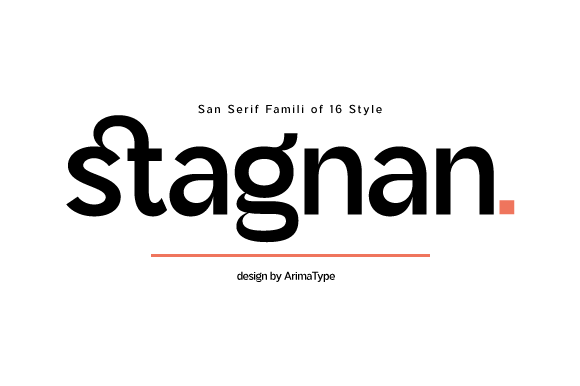
Behold Stagnan, the remarkable sans serif font family, meticulously designed by Arimatype. Its clean lines and contemporary appeal make this font a versatile choice for any designer seeking to elevate their projects with sophistication and style.
With Stagnan, see your words take on a new lease of life, exuding confidence and clarity. Its carefully crafted glyphs and subtle curves lend an air of elegance to every typographic creation, ensuring that your message commands attention. Whether you're composing a captivating website, crafting a stylish logo, or designing eye-catching marketing materials, Stagnan will elevate your designs to new heights.
Step into a realm of creative possibilities with Stagnan. Its versatility extends from captivating headlines that demand attention to elegant body text that invites readers to delve deeper into your content. Experience the joy of effortlessly crafting designs that resonate with your audience, leaving a lasting impression that lingers in their minds long after they've encountered your creations.
Let Stagnan be the cornerstone of your typographic journey. Its meticulously balanced letterforms ensure optimal legibility across various screen sizes and printed materials, ensuring that your message is conveyed with crystal-clear precision. Trust Stagnan to deliver a seamless reading experience, whether you're captivating an audience with a compelling presentation, engaging them through social media posts, or captivating their attention with eye-catching signage.
Unleash the power of Stagnan and witness how it transforms your design concepts into captivating realities. Let your creative spirit run wild as you explore the endless possibilities that this remarkable sans serif font family has to offer. Embrace Stagnan today, and embark on a journey where your designs shine with sophistication, clarity, and timeless appeal.